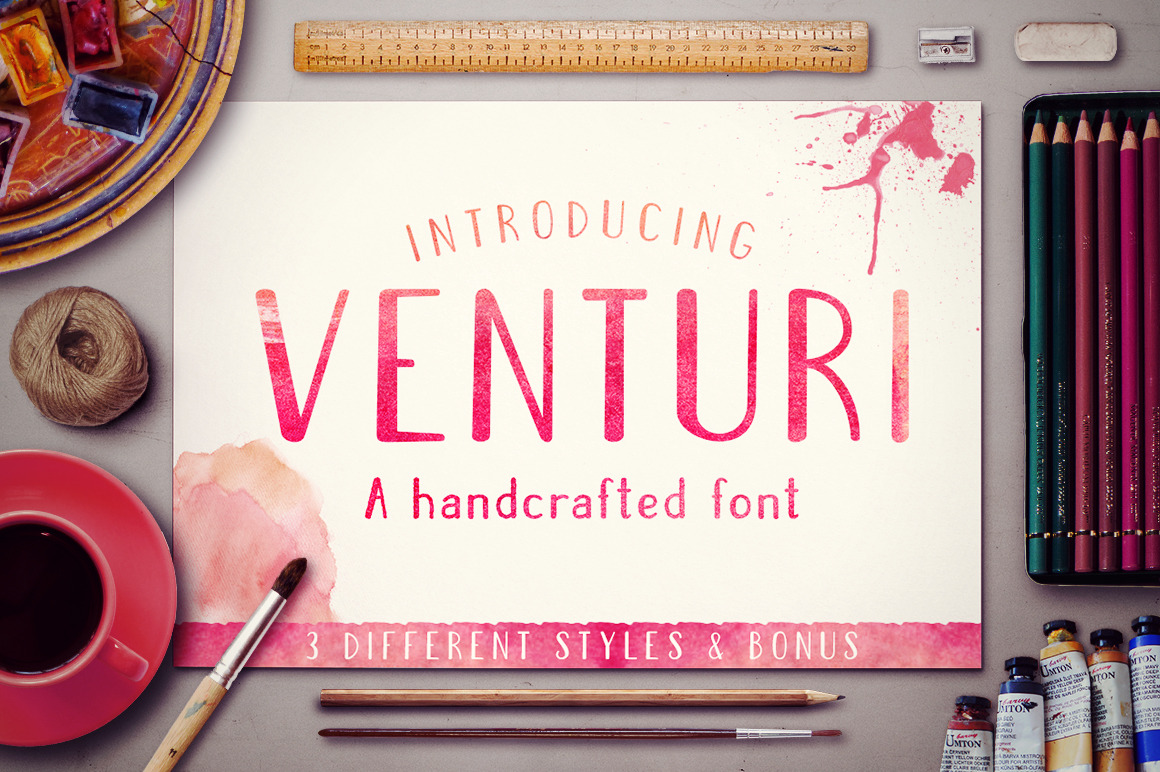
Venturi Typeface + Bonus
Introducing the new Venturi Typeface, a modern display font in three different variants: Regular, Bold and Rough. Made by hand, Venturi is a casual typeface perfect for your awesome posters, logos, cards, badges, labels and whatever you can imagine!
Experiment with Venturi and watercolor styles and make a unique work with an original appearance!
- 3 Styles: Venturi, Venturi Bold and Venturi Rough.
- Uppercase.
- Lowercase.
- Numerals.
- Accents.
- Punctuation.